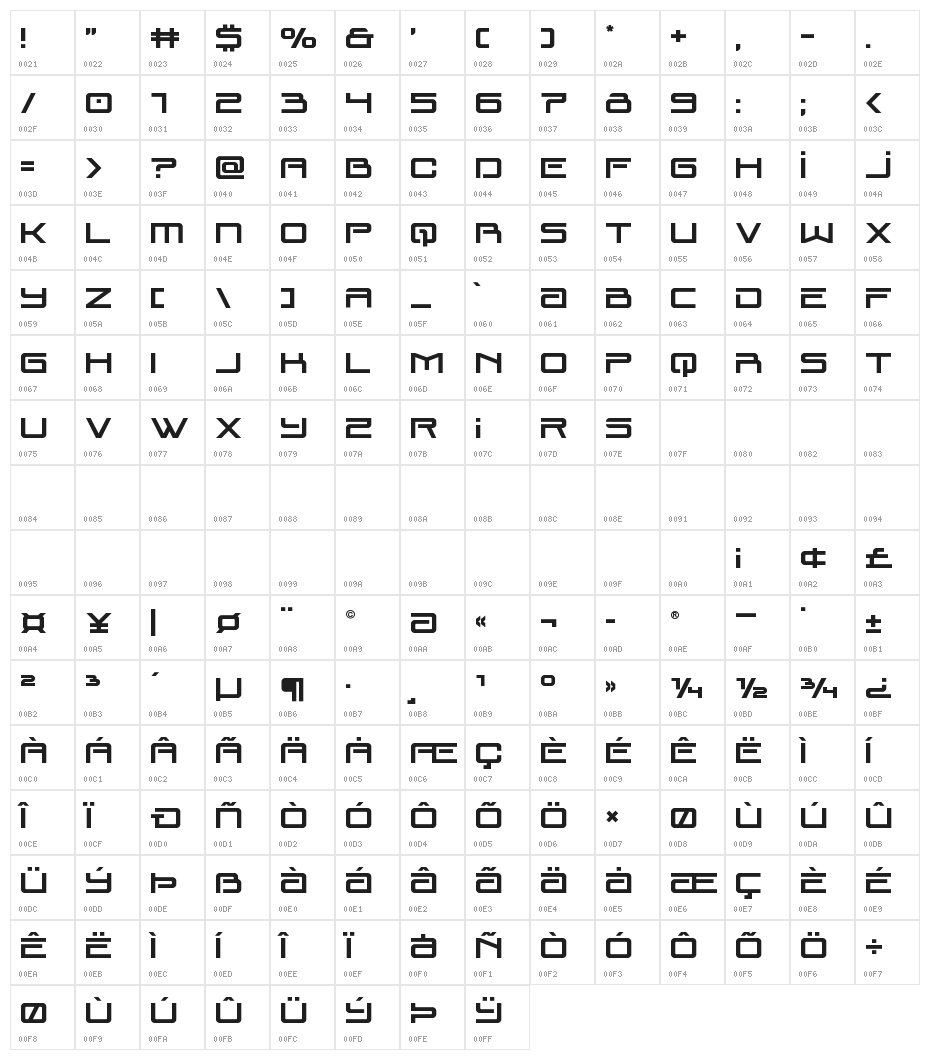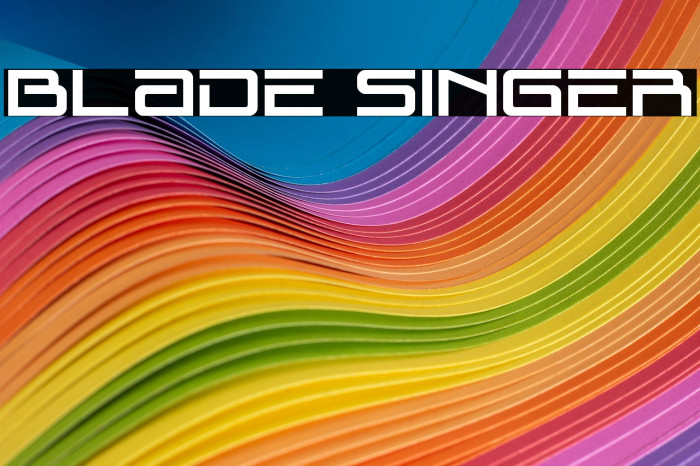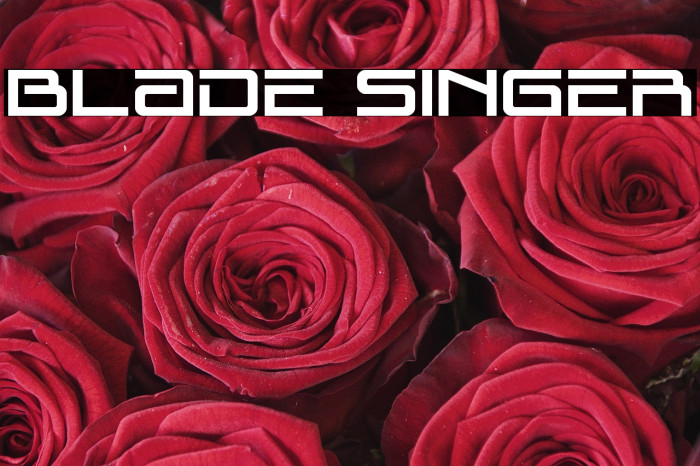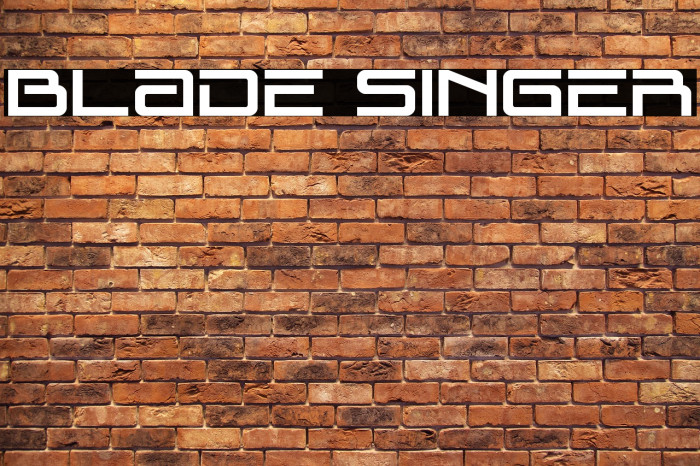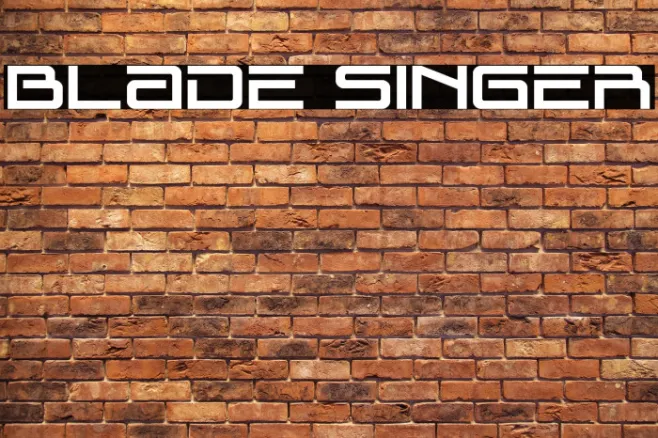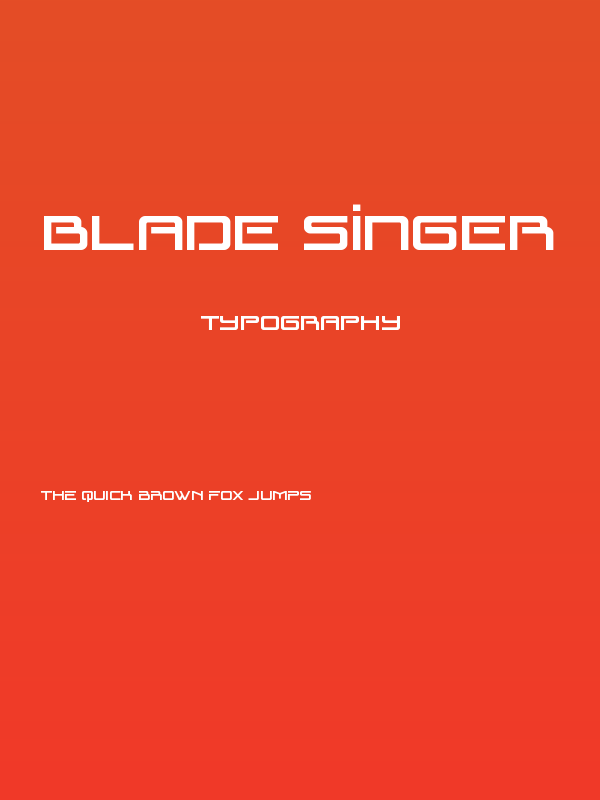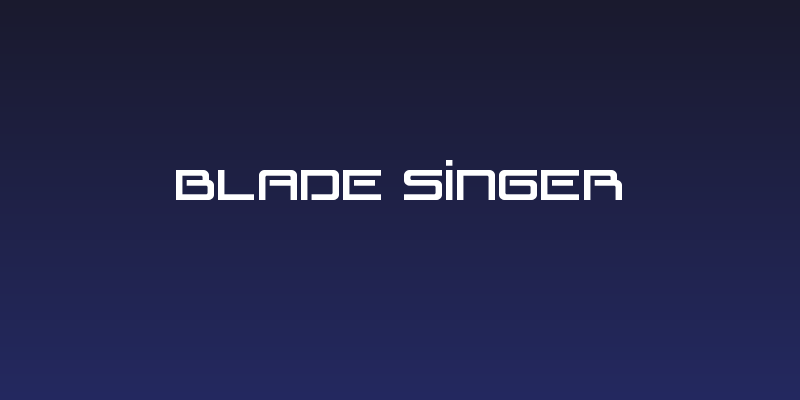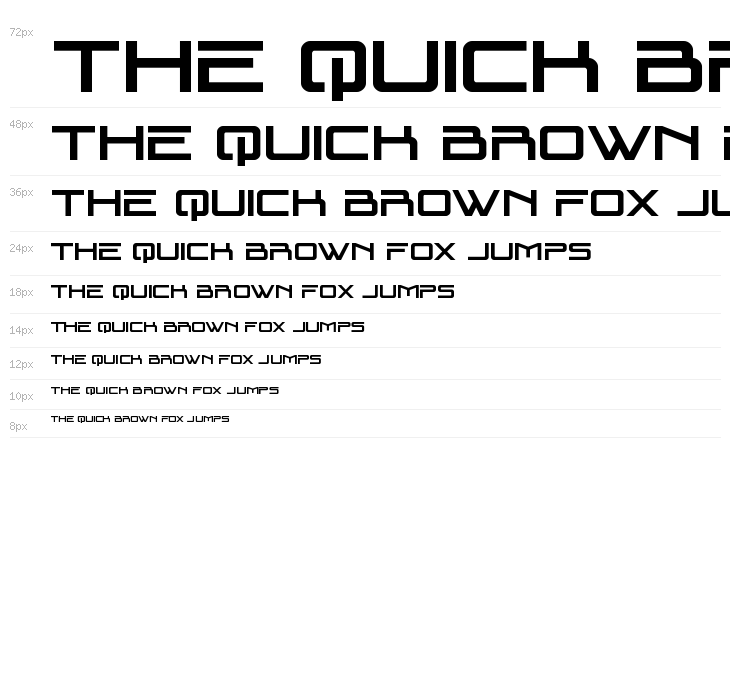
Blade Singer Font
Blade Singer Description
This font features a futuristic and geometric design, characterized by its angular and sharp edges. The uppercase and lowercase letters maintain a consistent structure, with a focus on symmetry and balance. The numerals and special characters follow the same design principles, ensuring a cohesive look across all glyphs. The font's style is reminiscent of digital or sci-fi themes, making it ideal for projects that require a modern and tech-savvy appearance. Its clean lines and uniformity make it highly legible, even at smaller sizes.
| Proposed Projects | Ideal for technology branding, sci-fi movie posters, video game titles, and digital interfaces. |